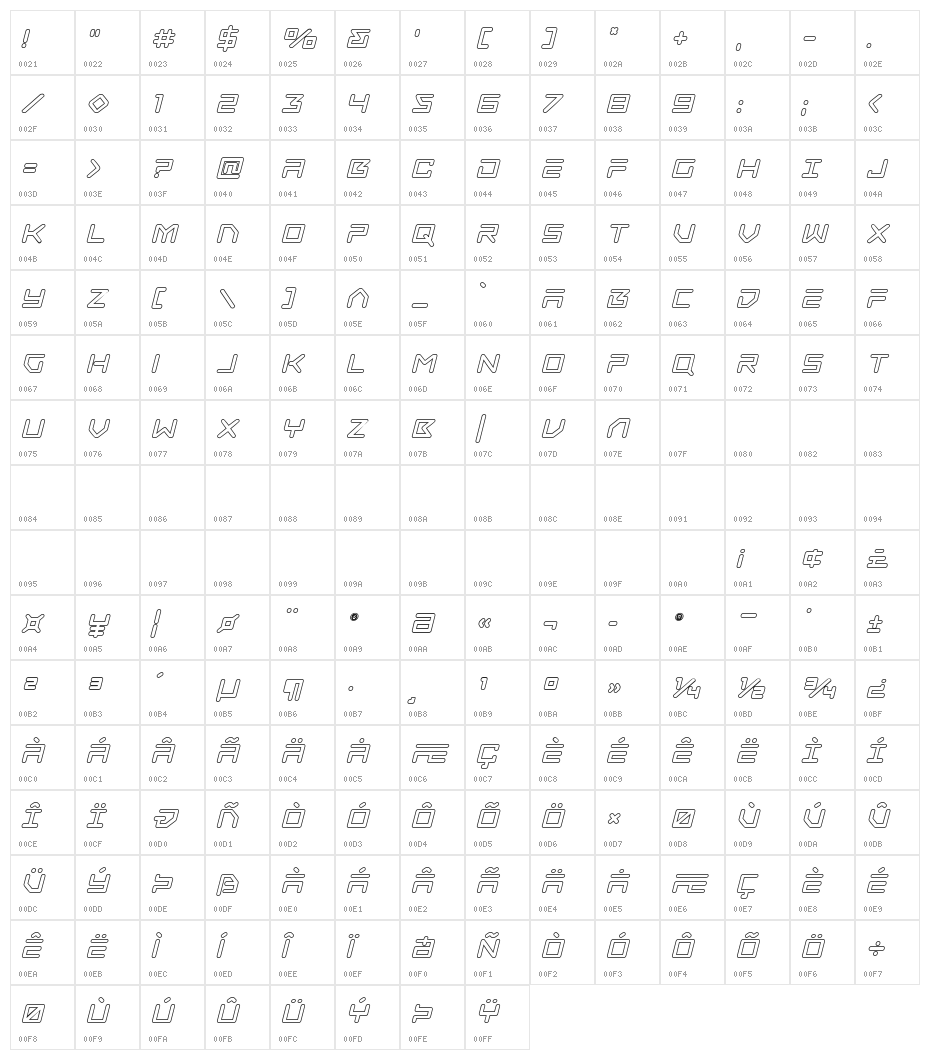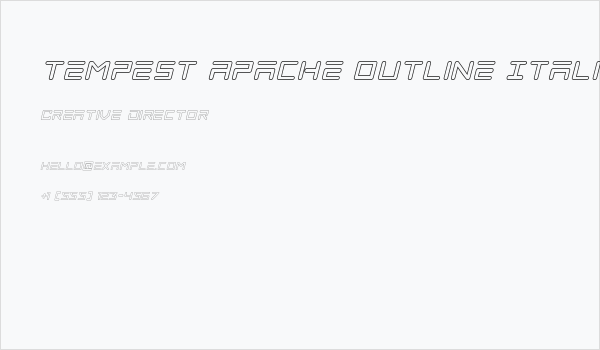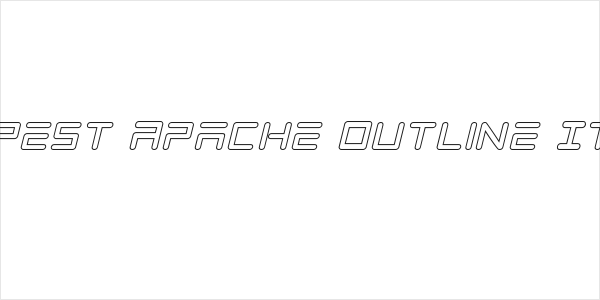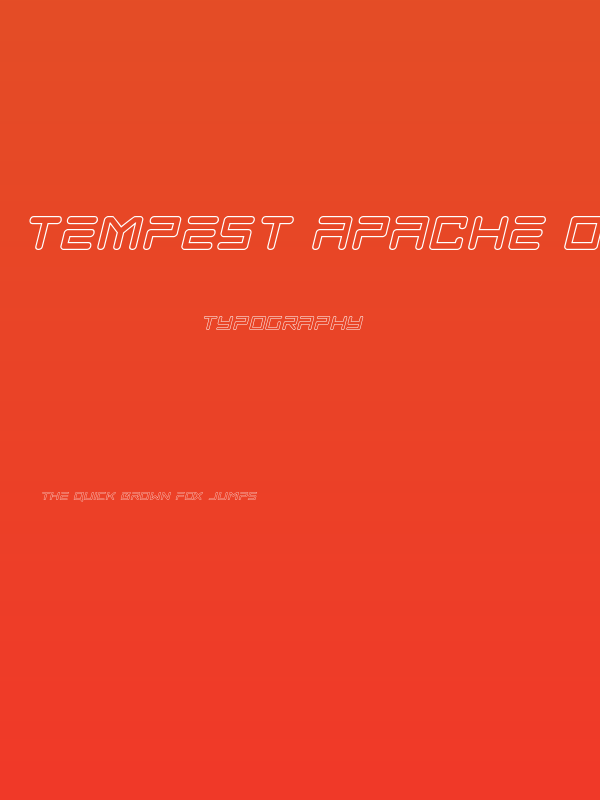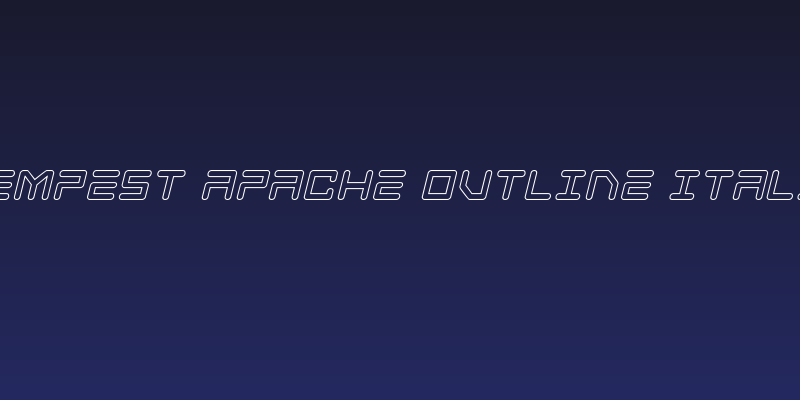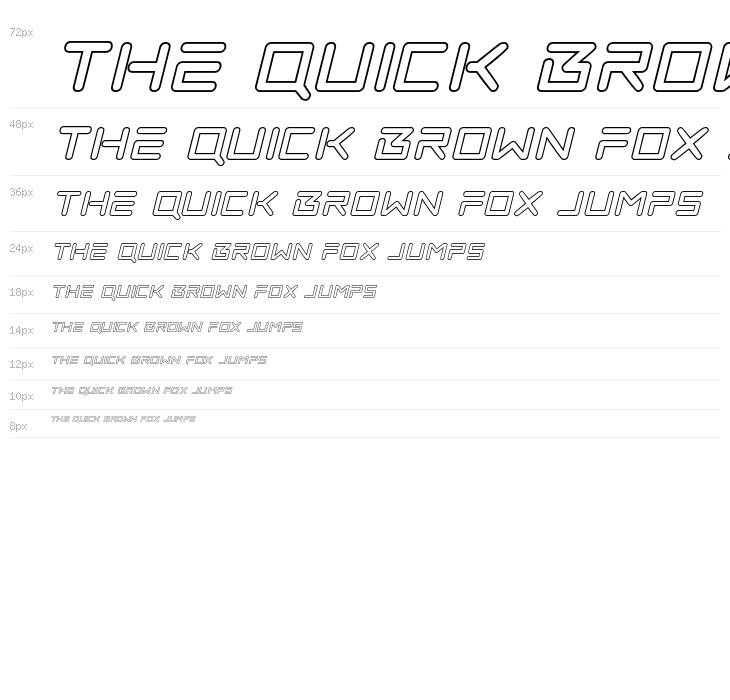
Tempest Apache Outline Italic Font
Tempest Apache Outline Italic Description
This font features a modern, geometric outline style with a distinct italic slant, giving it a dynamic and futuristic appearance. The characters are constructed with clean, sharp lines and angles, creating a sense of movement and speed. The uppercase and lowercase letters maintain a consistent design, with the lowercase slightly smaller in size but mirroring the uppercase's angular structure. The numerals and special characters follow the same design principles, ensuring uniformity across the typeface. The outline nature of the font adds a layer of complexity and visual interest, making it suitable for eye-catching designs.
| Proposed Projects | Ideal for futuristic branding, tech-related projects, video game titles, and dynamic poster designs. |